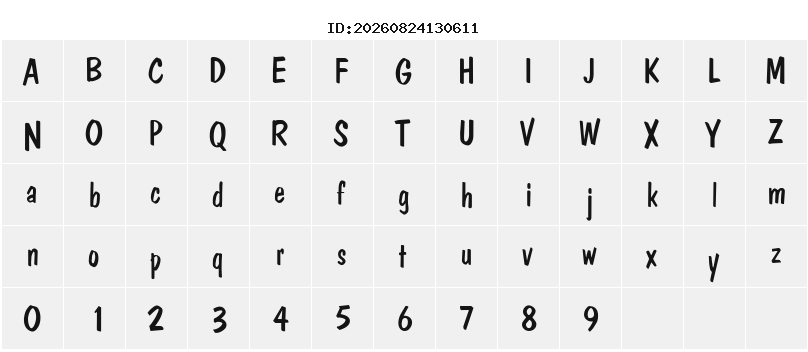
SabrinaBecker Preview
About SabrinaBecker.ttf
SabrinaBecker.ttf is a modern, elegant sans-serif font designed for ultimate readability and visual harmony. Perfect for branding, headlines, web design, and print materials.